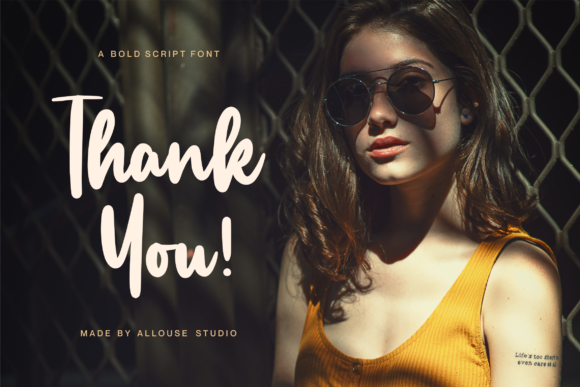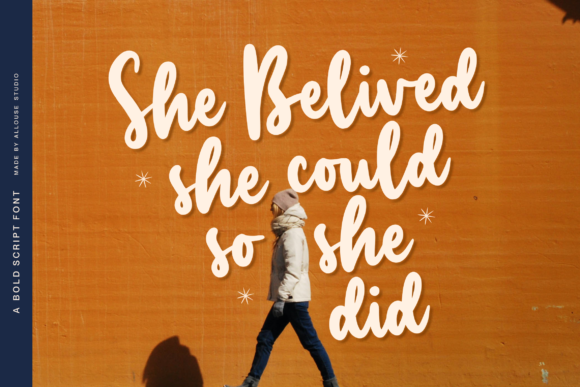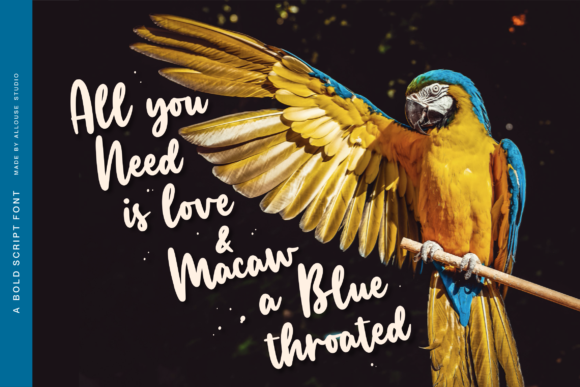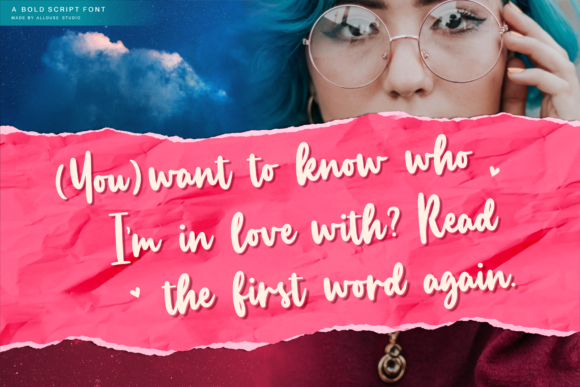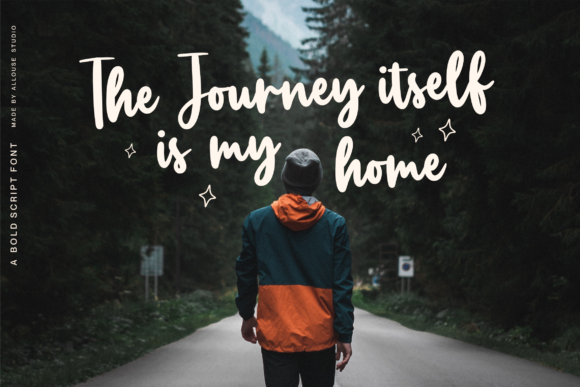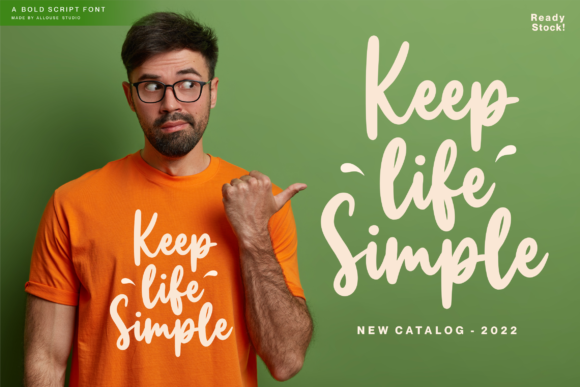
Manlyscript Font
About Manlyscript Font
Manlyscript is a relaxed and stylish handwritten font. Whether you’re using it for crafts, digital design, presentations, or making greeting cards, this font has the potential to become your favorite go-to font, no matter the occasion!